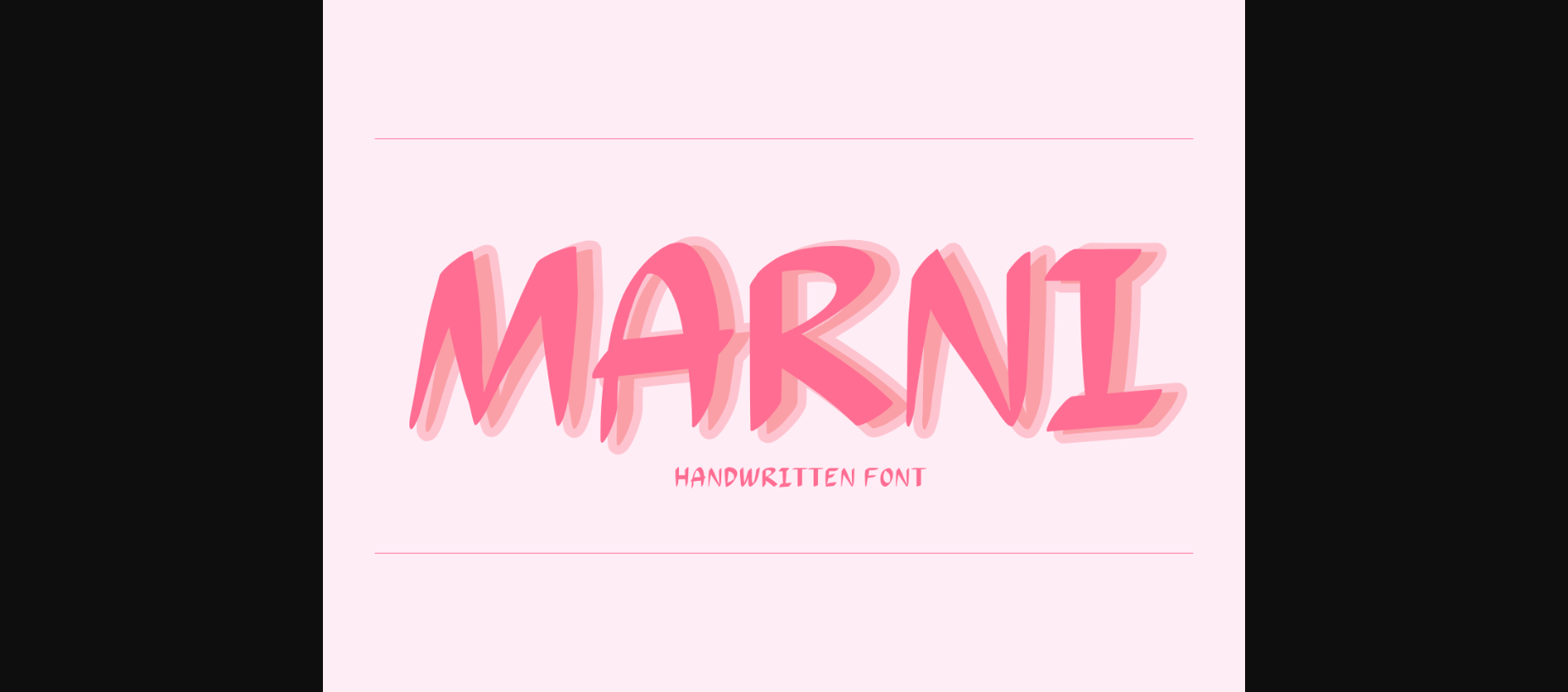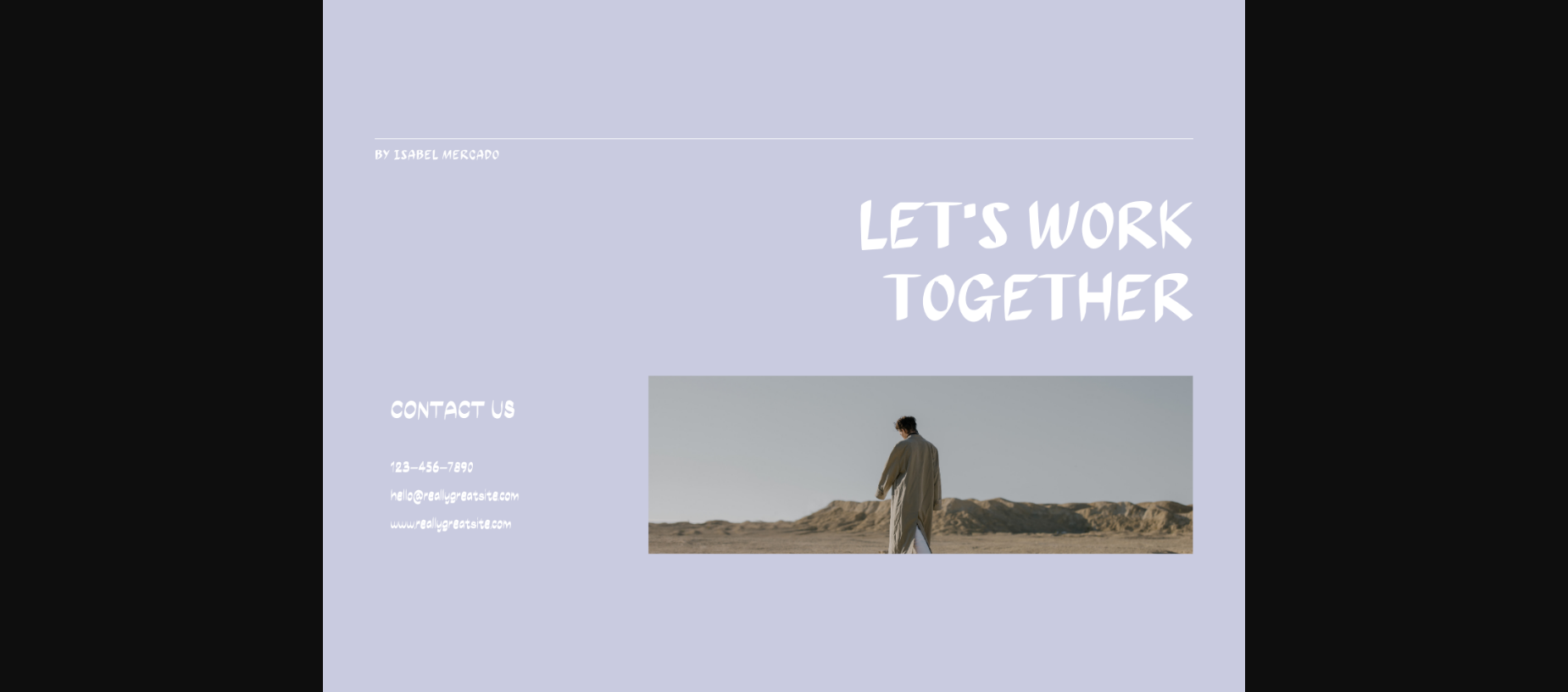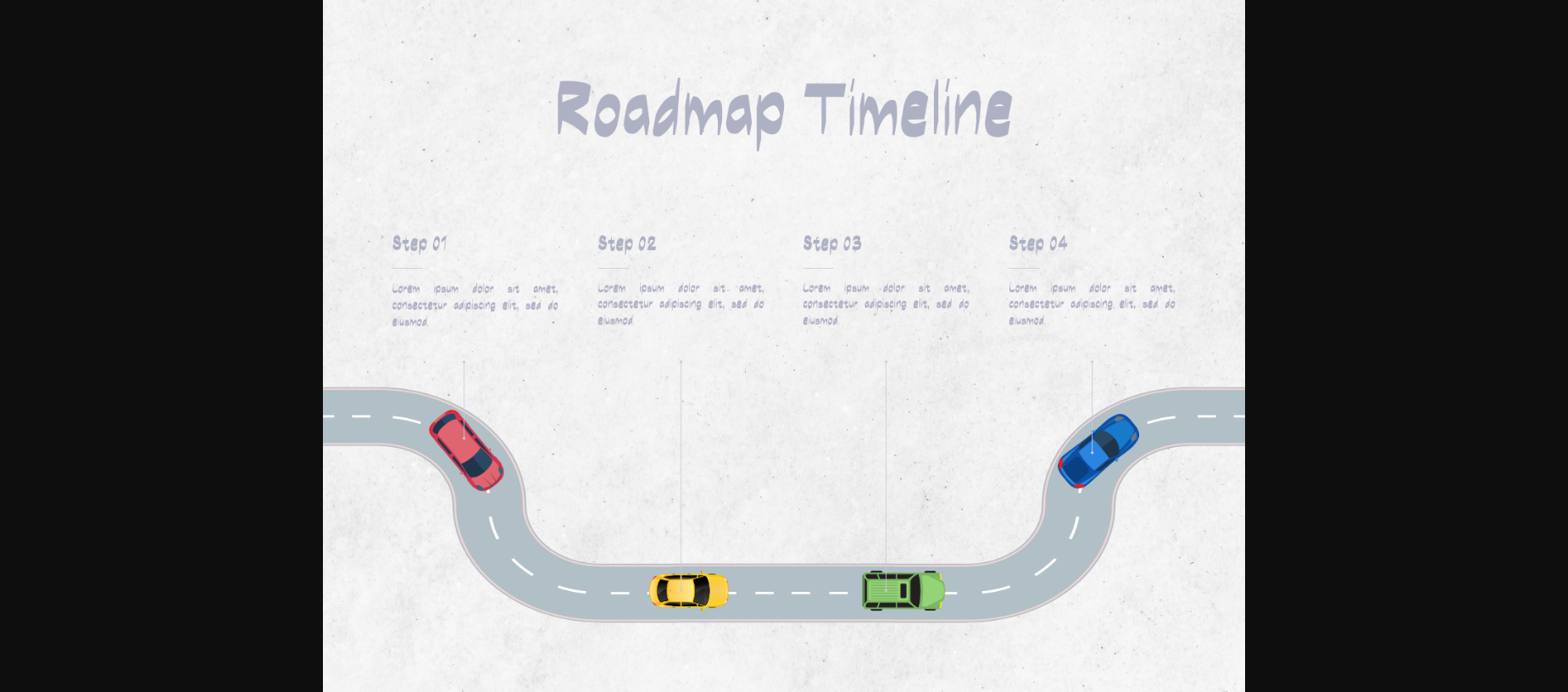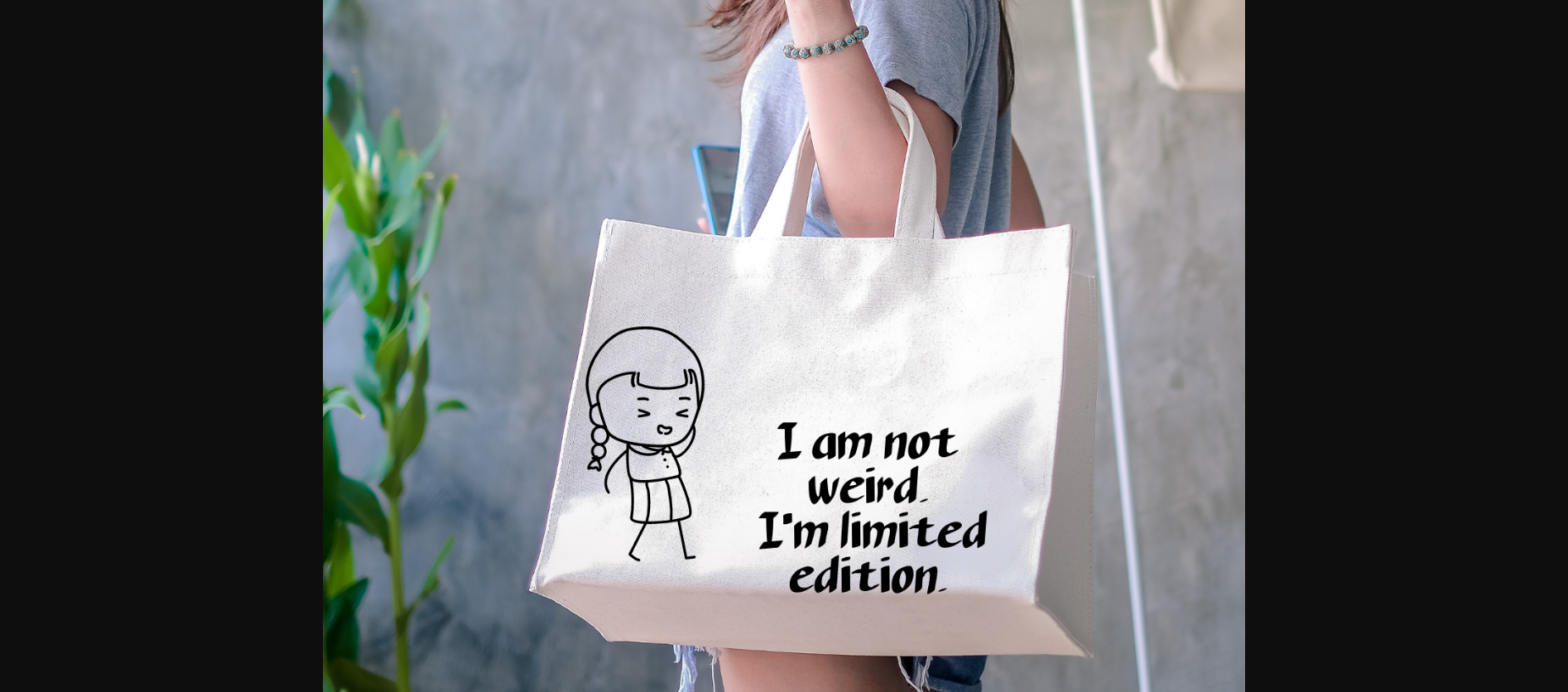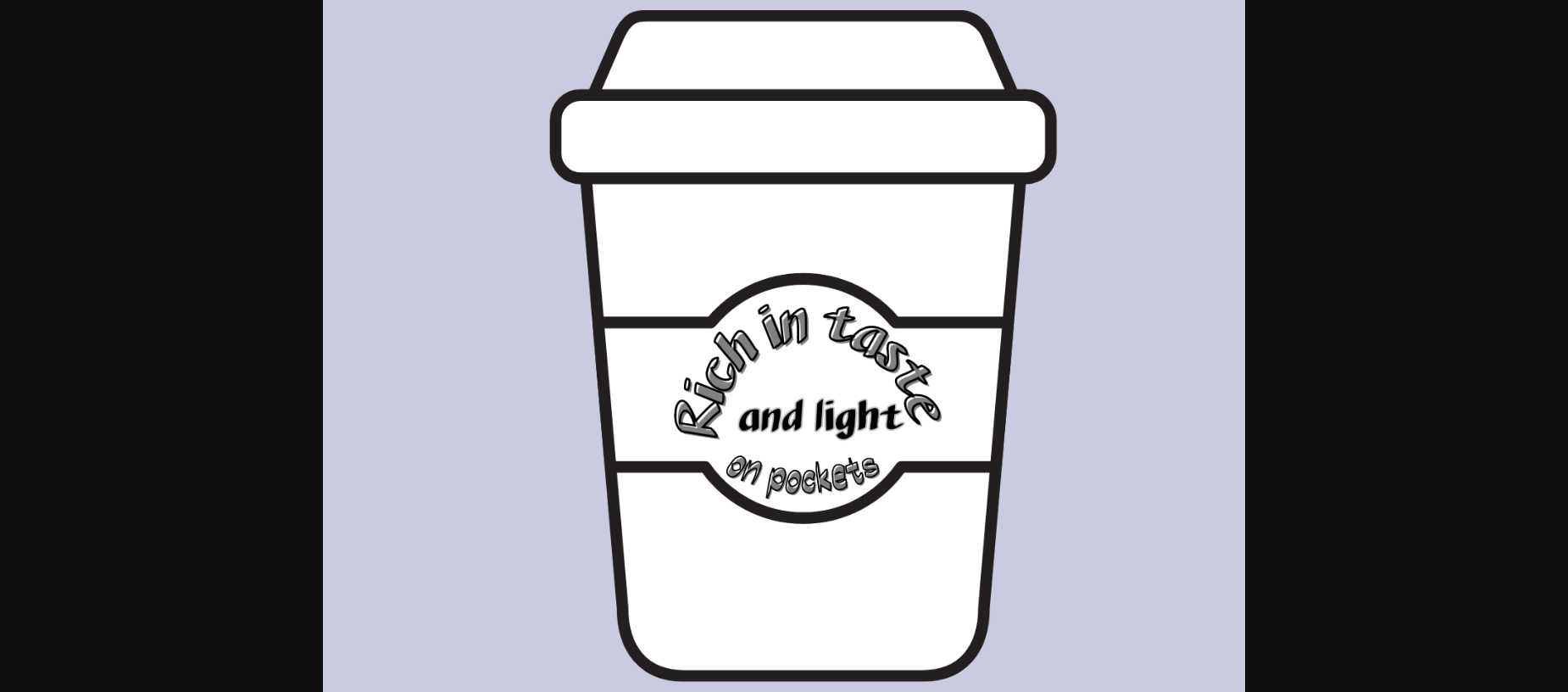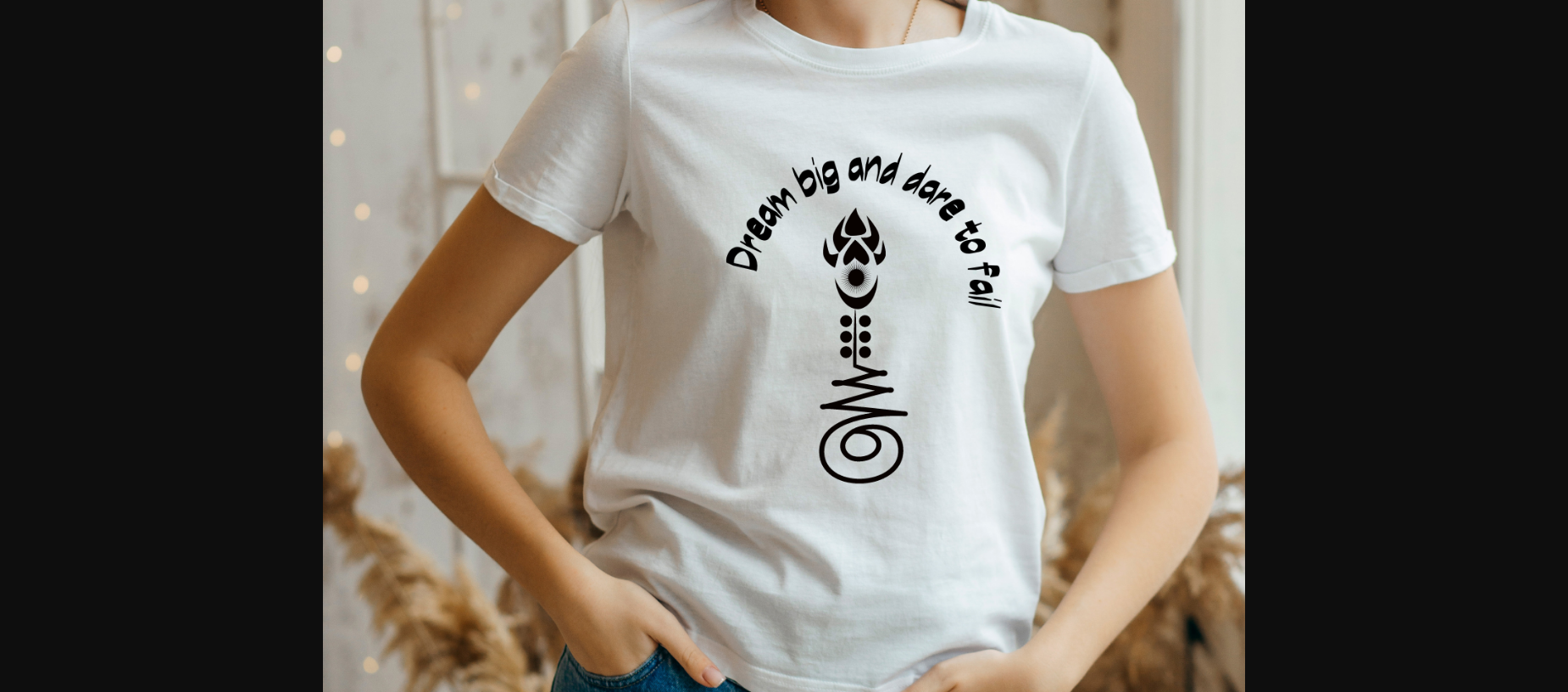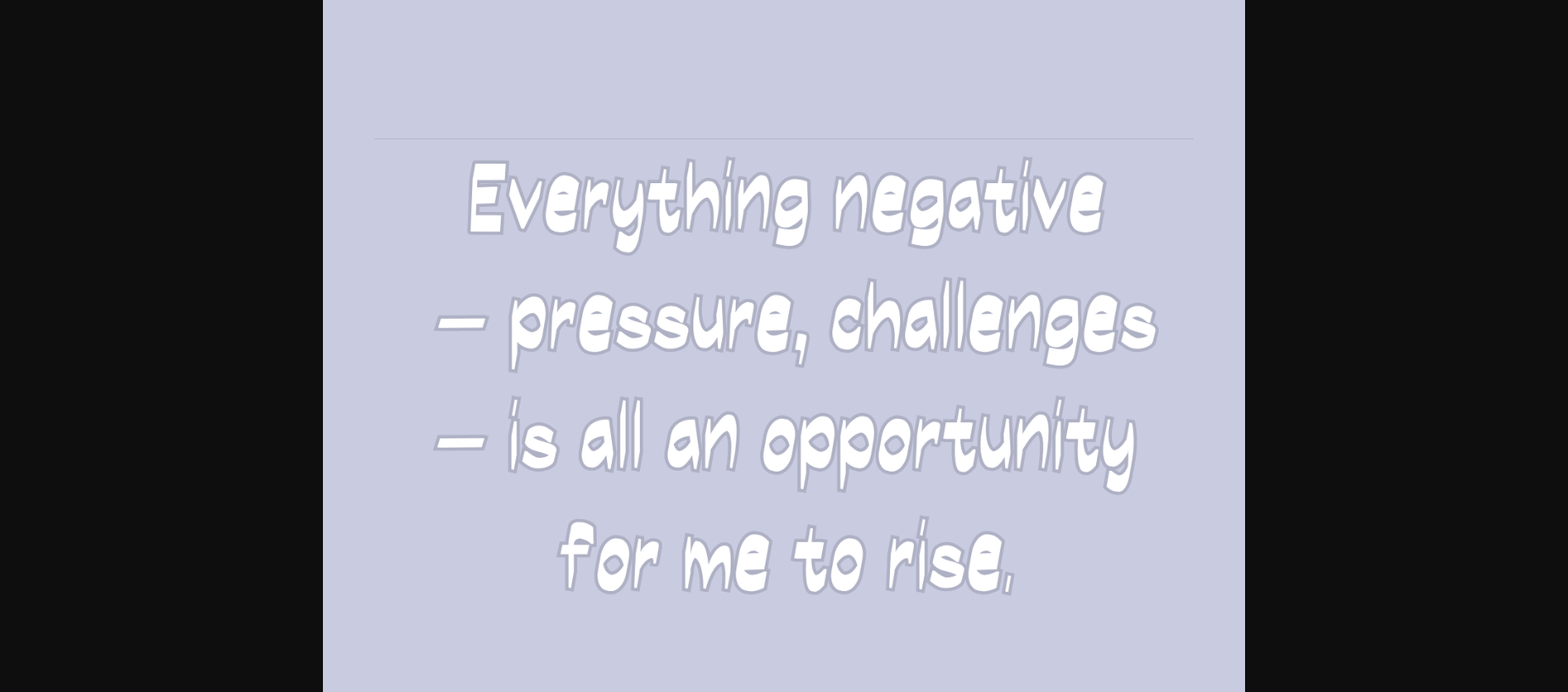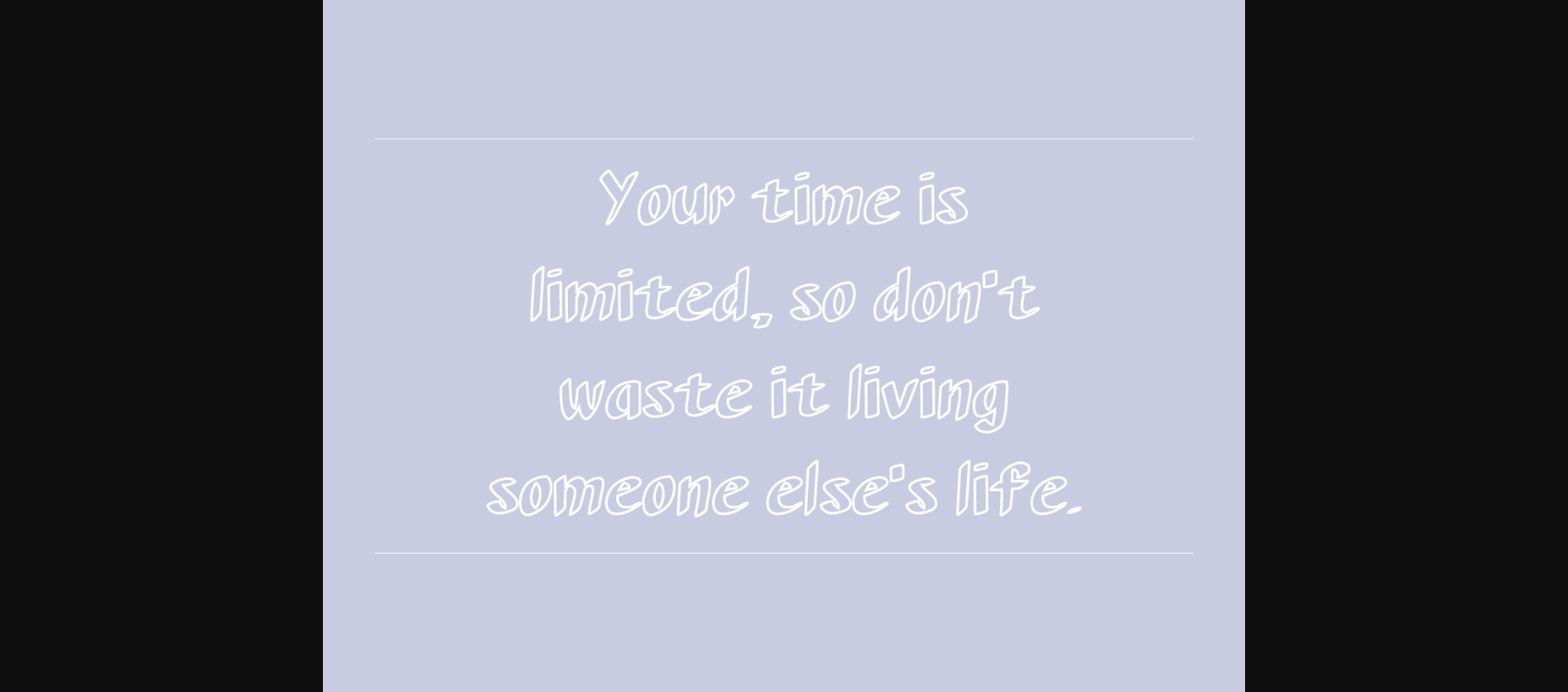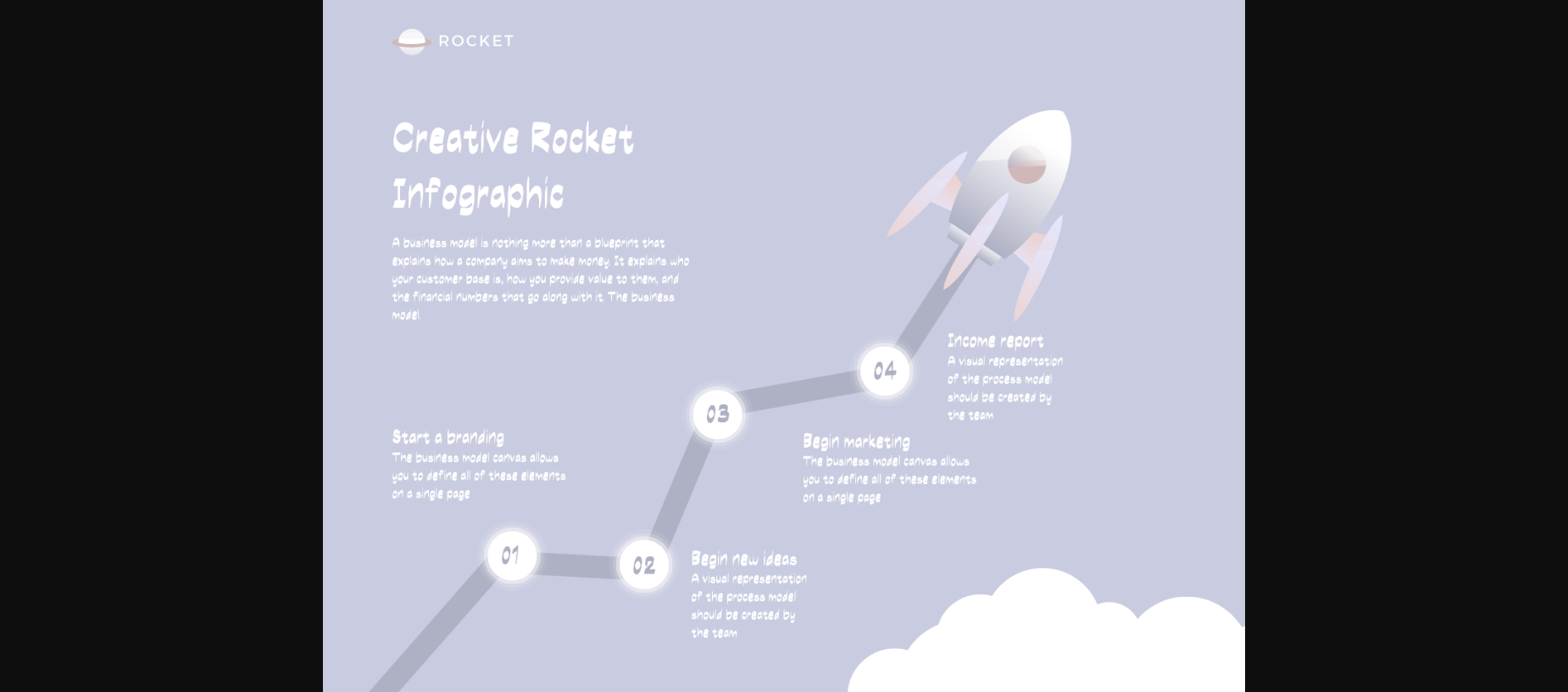
HomeSans Serif FontsMarni Font Sans Serif Fonts Marni Font FacebookXPinterestWhatsApp 1 of 11 ... Marni Font Poster 2... Marni Font Poster 3... Marni Font Poster 4... Marni Font Poster 5... Marni Font Poster 6... Marni Font Poster 7... Marni Font Poster 8... Marni Font Poster 9... Marni Font Poster 10... Marni Font Poster 11... About Marni Font Marni is a sweet and friendly handwritten font. Its natural and unique style makes it incredibly fitting to a large pool of designs. The only limit is your imagination! DOWNLOAD NOW People also explored Qukle Font Lore Nokturnia Hollow Font Gnome Valentine Font Dahlia Font Astica Script Catalog Envelope Zoom | Sketch Mockup Stories Font Hello Gorgeous Font Kandel Font 431 0 TagsMarniMarni Font Previous articleGamer Roster FontNext articleDrakota Font LEAVE A REPLY Cancel reply Comment: Please enter your comment! Name:* Please enter your name here Email:* You have entered an incorrect email address! Please enter your email address here Website: Save my name, email, and website in this browser for the next time I comment. Personal Use Free Waverly Date Personal Use Free Read more about this font Karmatic Arcade Personal Use Free Read more about this font Mallvirra Personal Use Free Read more about this font Adelia Font Personal Use Free Read more about this font BLOG Using Fonts in Digital Marketing: Tips to Strengthen Your Brand Identity In the realm of digital marketing, every visual element plays a crucial role in shaping a brand's identity, and fonts are no exception. The... Fonts That Capture the Spirit of New York City Transform Your Website: Elevate Your Typography with 7 Best Web Font Generators Top 7 Google Fonts Alternatives for Faster and Privacy-Friendly Web Design (2025)